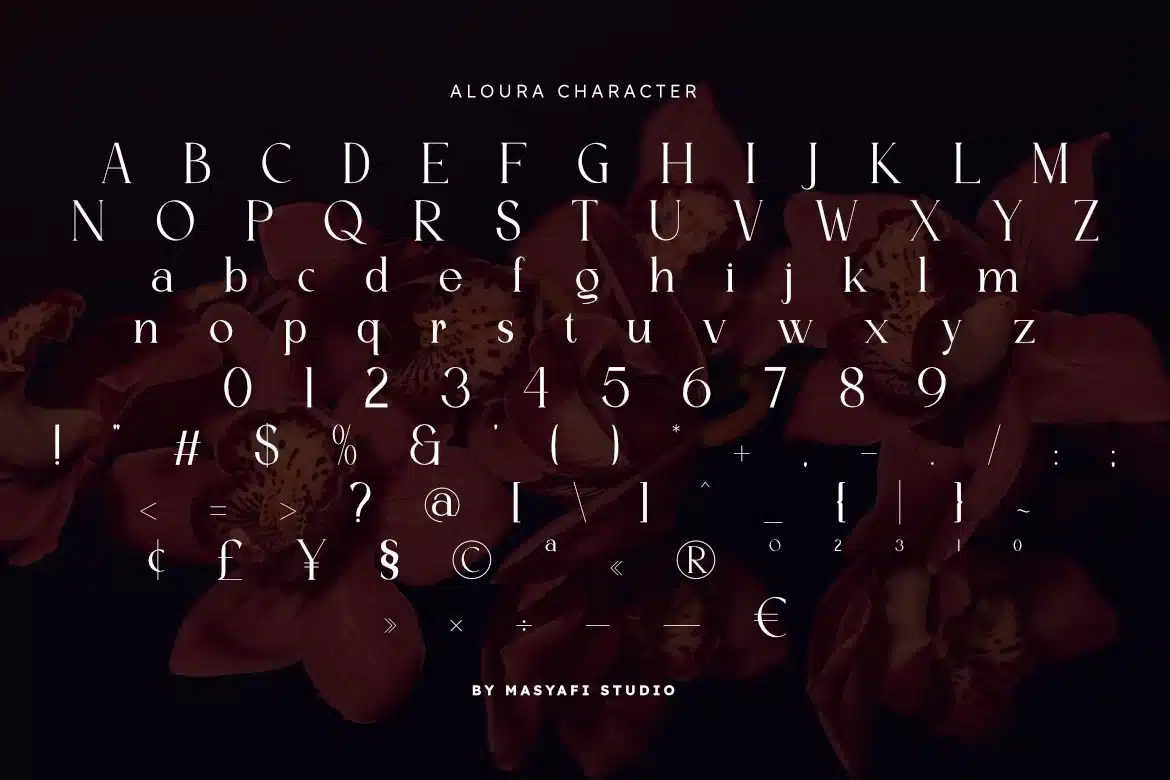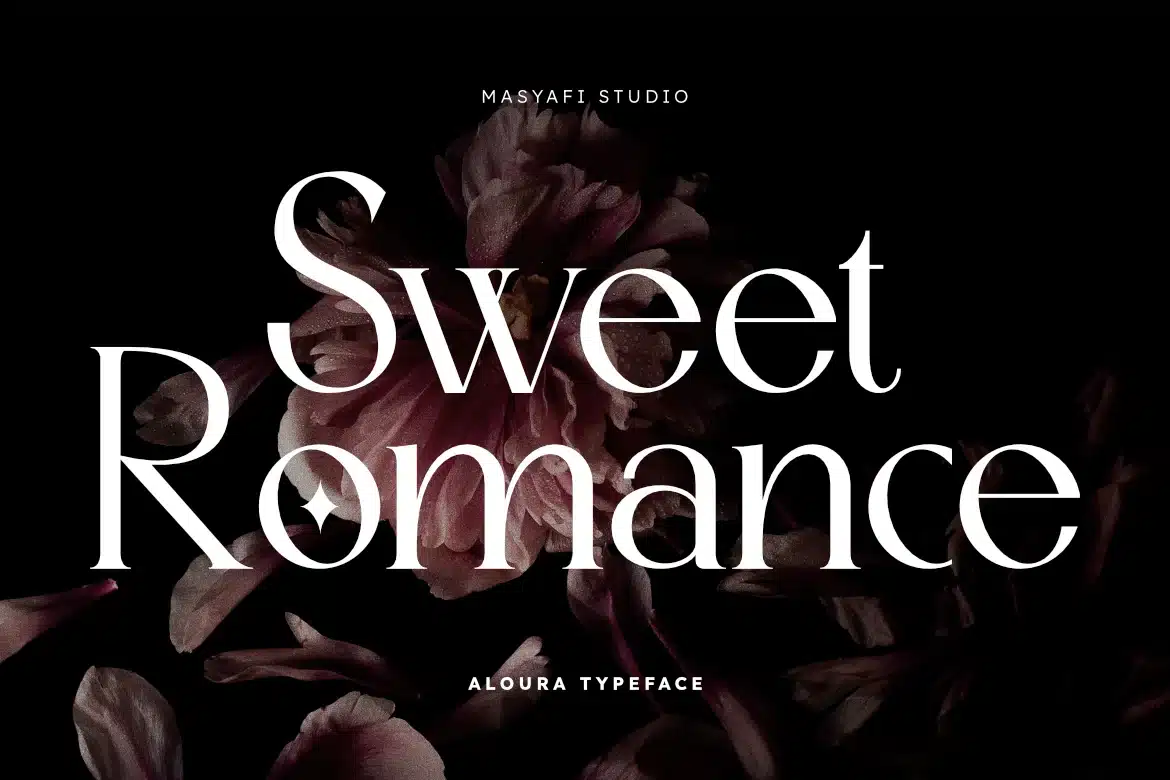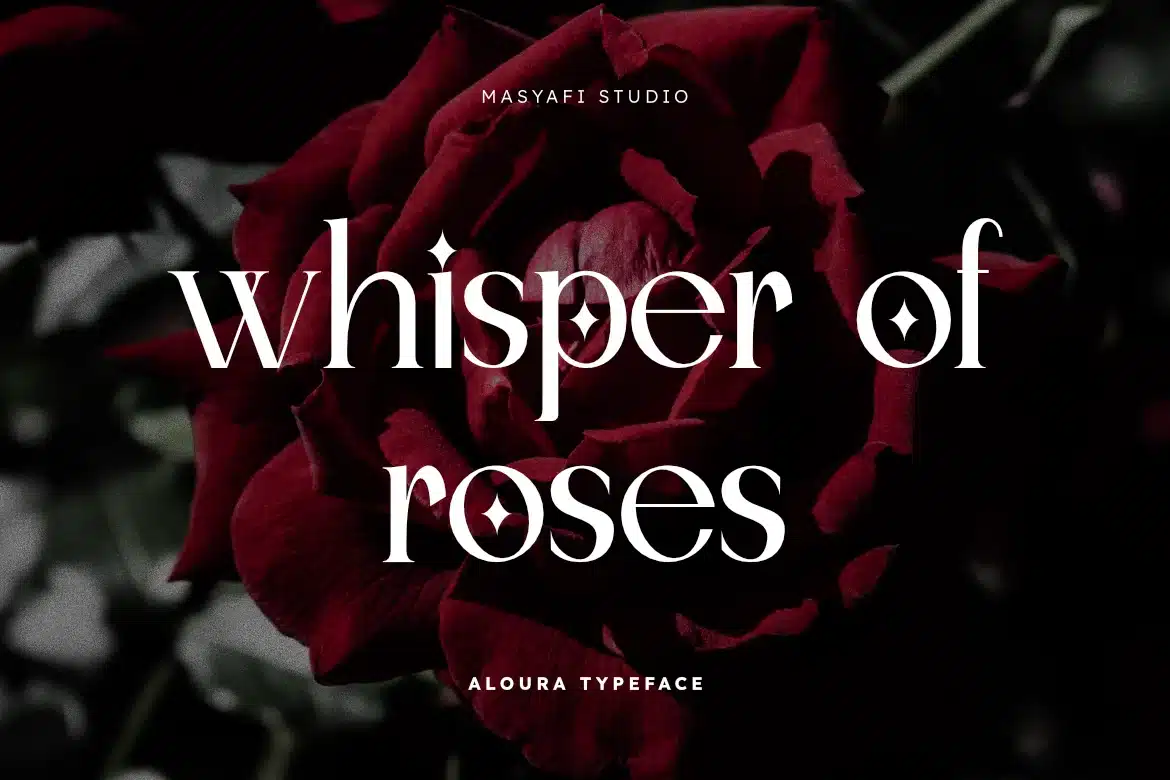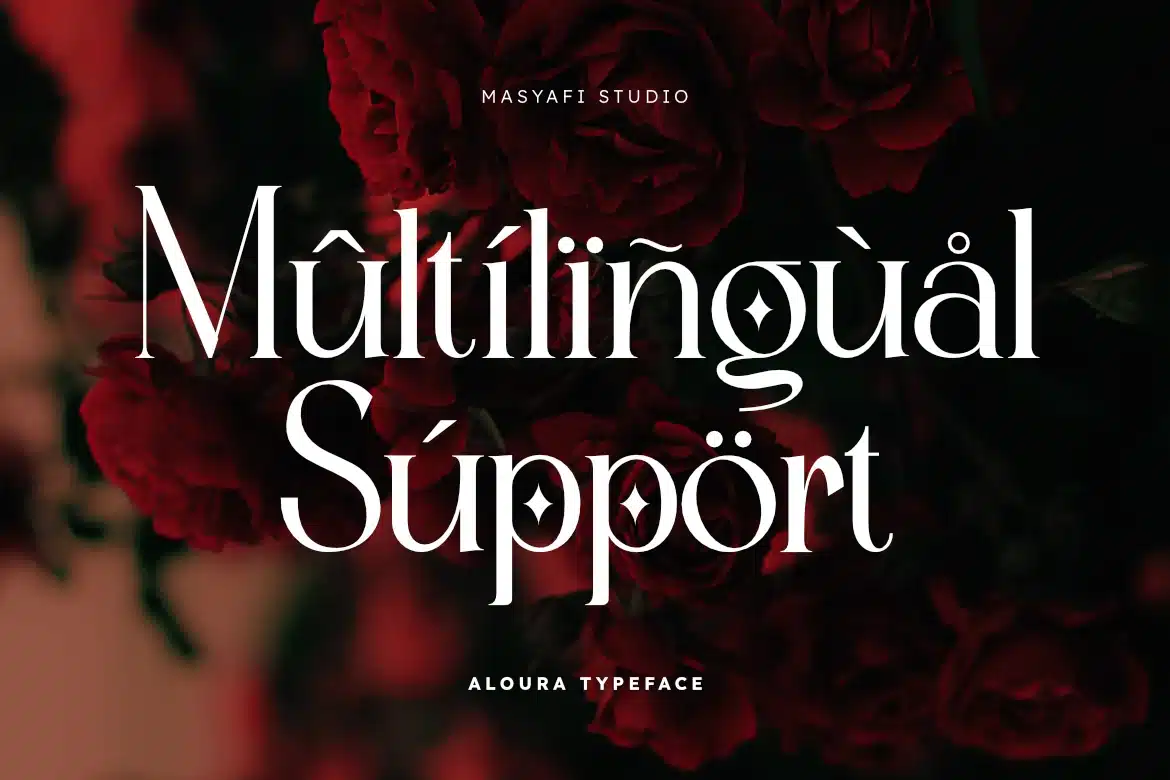
Aloura – Modern Serif Logo Font
Alouria is a modern serif font featuring high contrast strokes and elegant decorative details. Its stylish letterforms make it ideal for branding, logos, packaging, invitations, and editorial design.
With smooth curves and unique shapes, Alouria adds a refined touch to both digital and print projects.
Perfect for:
Logo and branding
Packaging and labels
Editorial and magazine titles
Posters and display typography
Wedding invitations and stationery